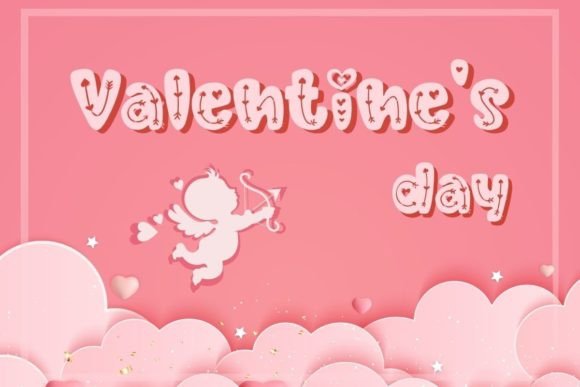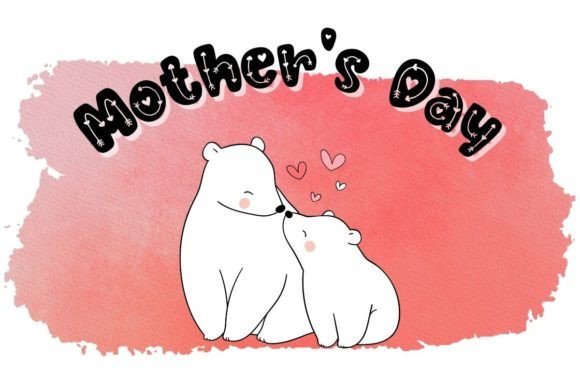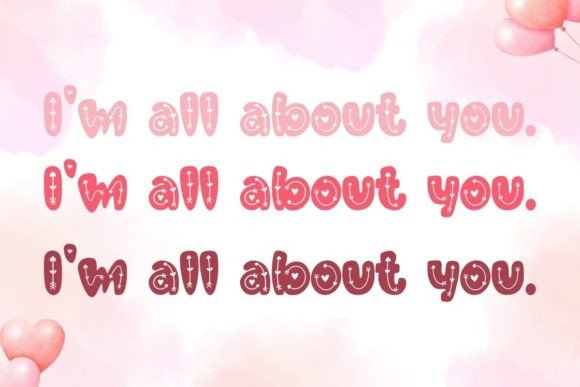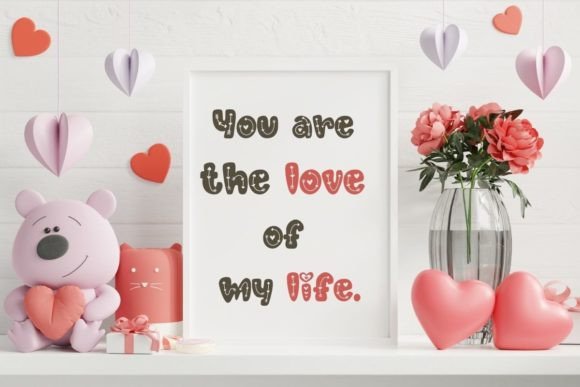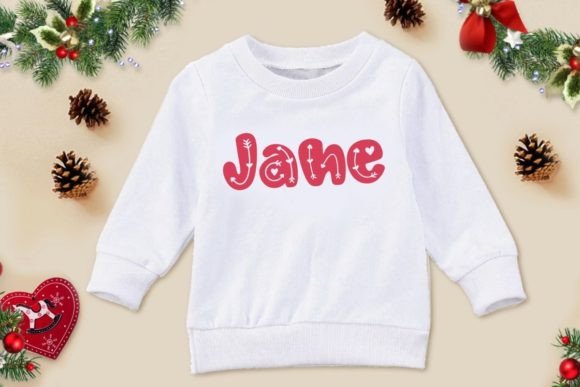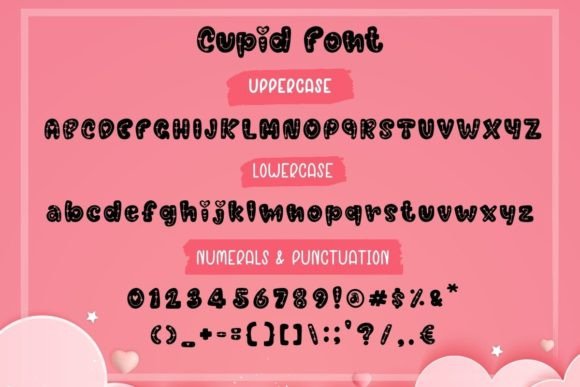
The Ultimate Guide to Cupid Font: Adding a Touch of Whimsy to Your Designs
I’ll never forget the time I was working on a Valentine’s Day project for a client, and I just couldn’t find the perfect font to capture the playful, romantic vibe they were looking for. I scoured the internet, tried out dozens of fonts, but nothing seemed quite right. That was until I stumbled upon Cupid Font. ✨ It was love at first sight! In this article, I’ll share my experience with Cupid Font, its features, and how to make the most of it in your designs.
A Personal Review of Cupid Font
Cupid Font has quickly become one of my go-to fonts for a wide range of projects. Here’s what I love about it:
- ✅ Cute and playful: Cupid Font is perfect for adding a touch of whimsy to your designs.
- ✅ Highly versatile: It can be used for a wide variety of projects, from banners and social media posts to mugs and stationery.
- ✅ Easy to read: Despite its decorative nature, Cupid Font is surprisingly easy to read, even at smaller sizes.
- ✨ Unique character set: The font comes with a range of unique characters and glyphs that can add an extra layer of interest to your designs.
Of course, no font is perfect, and Cupid Font does have a few quirks:
- ⚠️ Limited use in formal contexts: Due to its playful nature, Cupid Font may not be the best choice for formal or professional projects.
- 🤔 Some letters may be a bit inconsistent: As with any decorative font, some letters may be a bit inconsistent in terms of size or style, which can be a bit tricky to work with.
- Take advantage of OpenType features, such as glyphs and stylistic alternates, to add more interest to your designs.
Cupid Font comes with a range of OpenType features and glyphs that can add an extra layer of interest to your designs. Here are a few tips on how to access and use these features:
The Story Behind Cupid Font
Cupid Font was designed by a young font designer who wanted to create a font that would capture the playful, romantic spirit of Valentine’s Day. With its cute and charming letterforms, Cupid Font has quickly become a favorite among designers and crafters.
| Font Name | Cupid Font |
| Author | AnningArts |
| What is Cupid Font? | Cupid Font is a cute and playful decorative font that’s perfect for adding a touch of whimsy to your designs. |
| What can I use Cupid Font for? | Cupid Font can be used for a wide variety of projects, from banners and social media posts to mugs and stationery. |
| Is Cupid Font easy to read? | Yes, despite its decorative nature, Cupid Font is surprisingly easy to read, even at smaller sizes. |